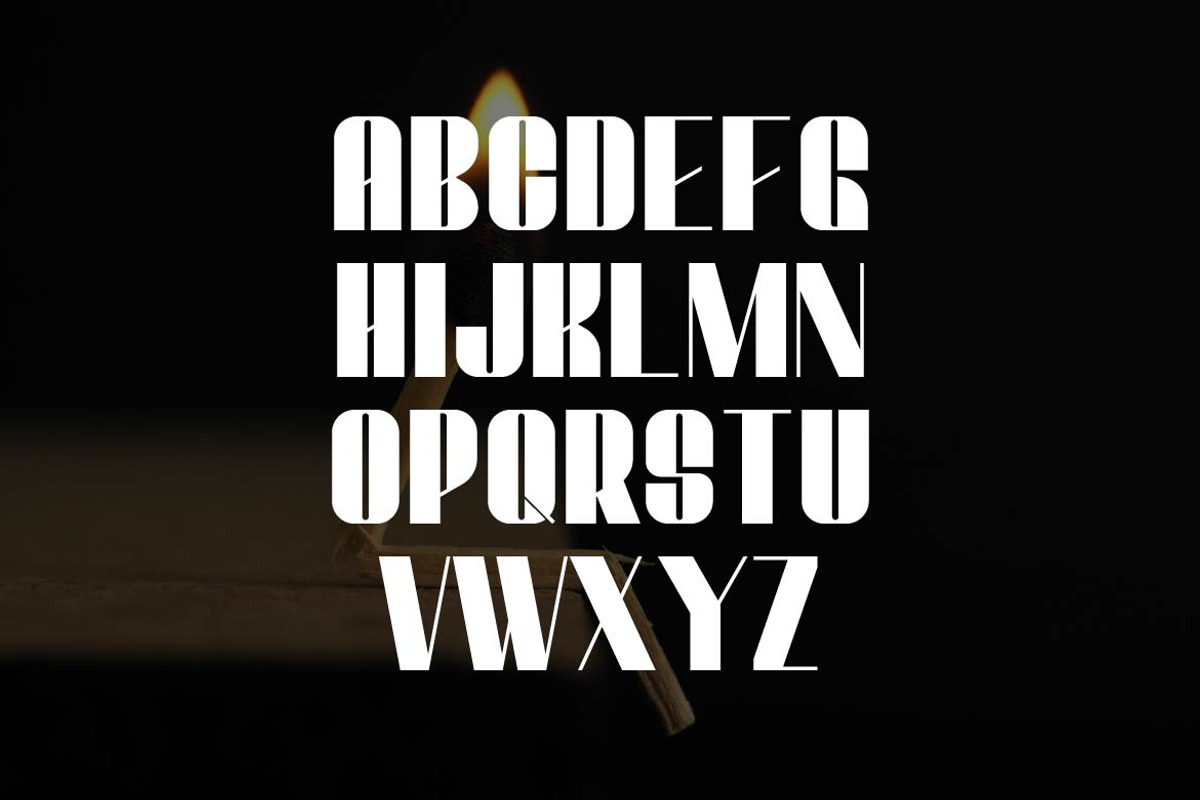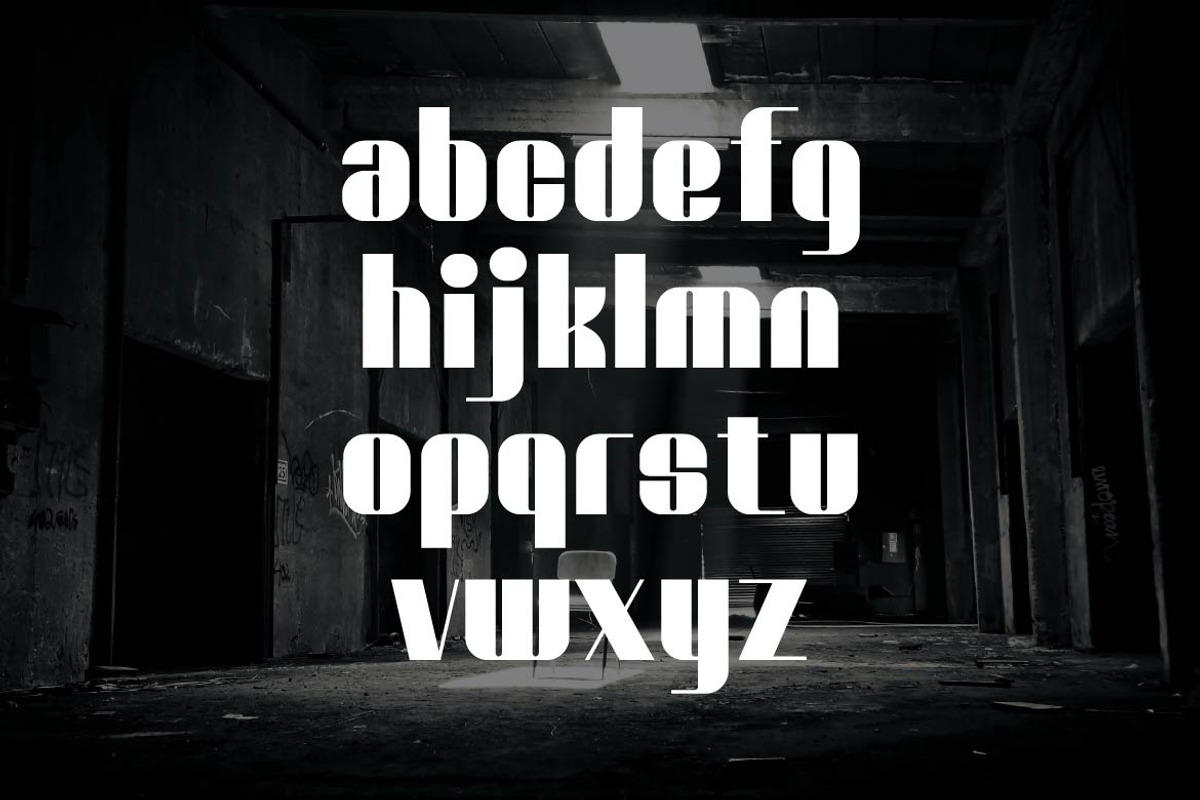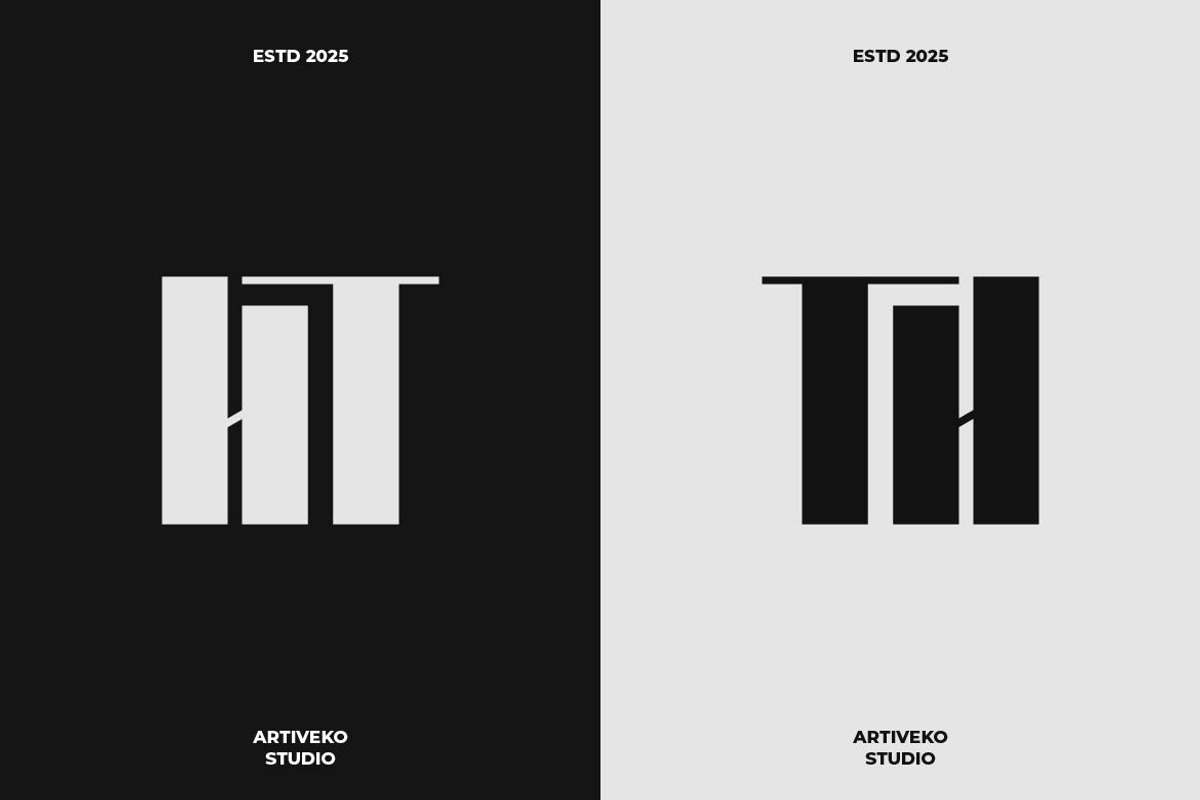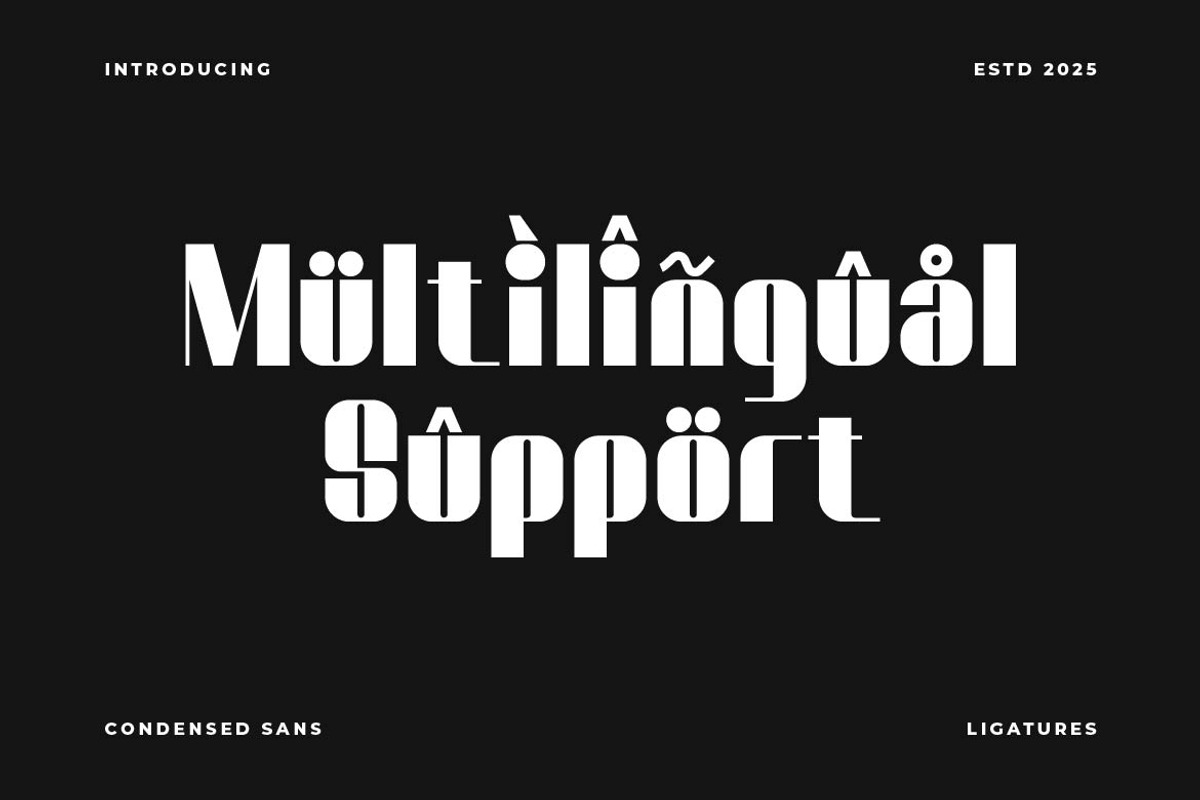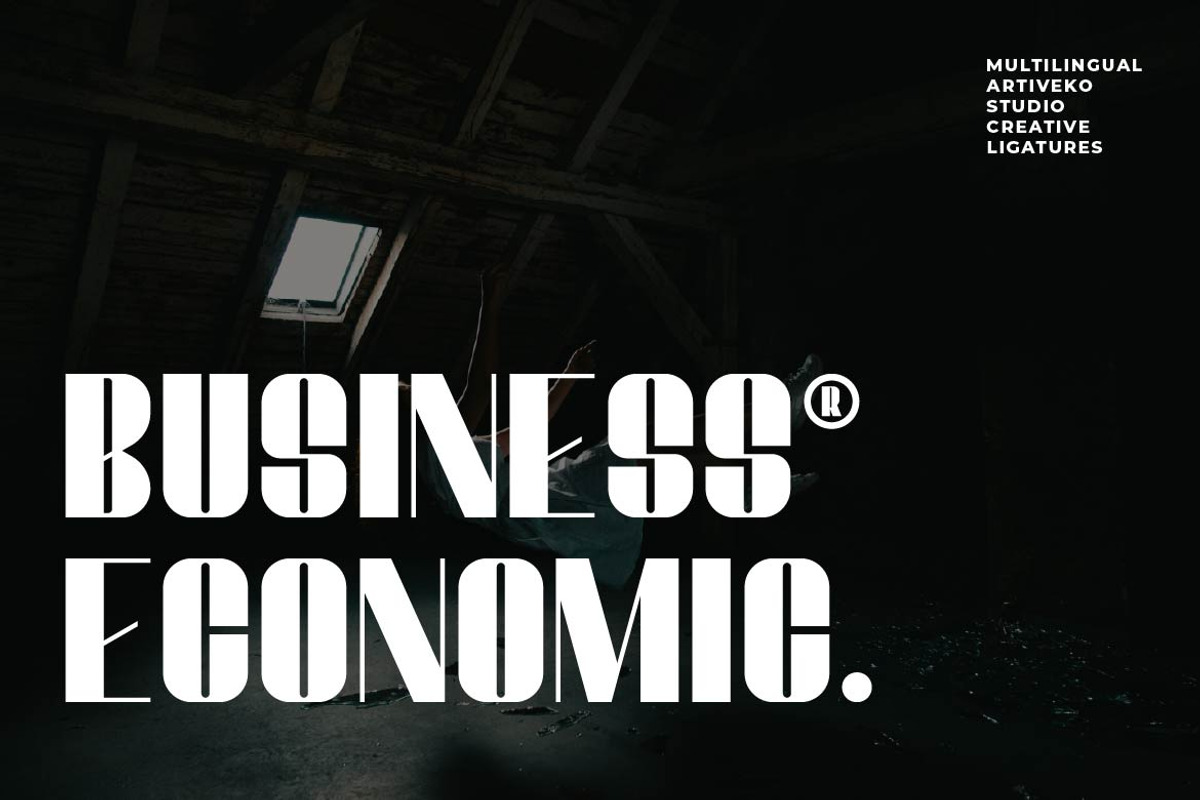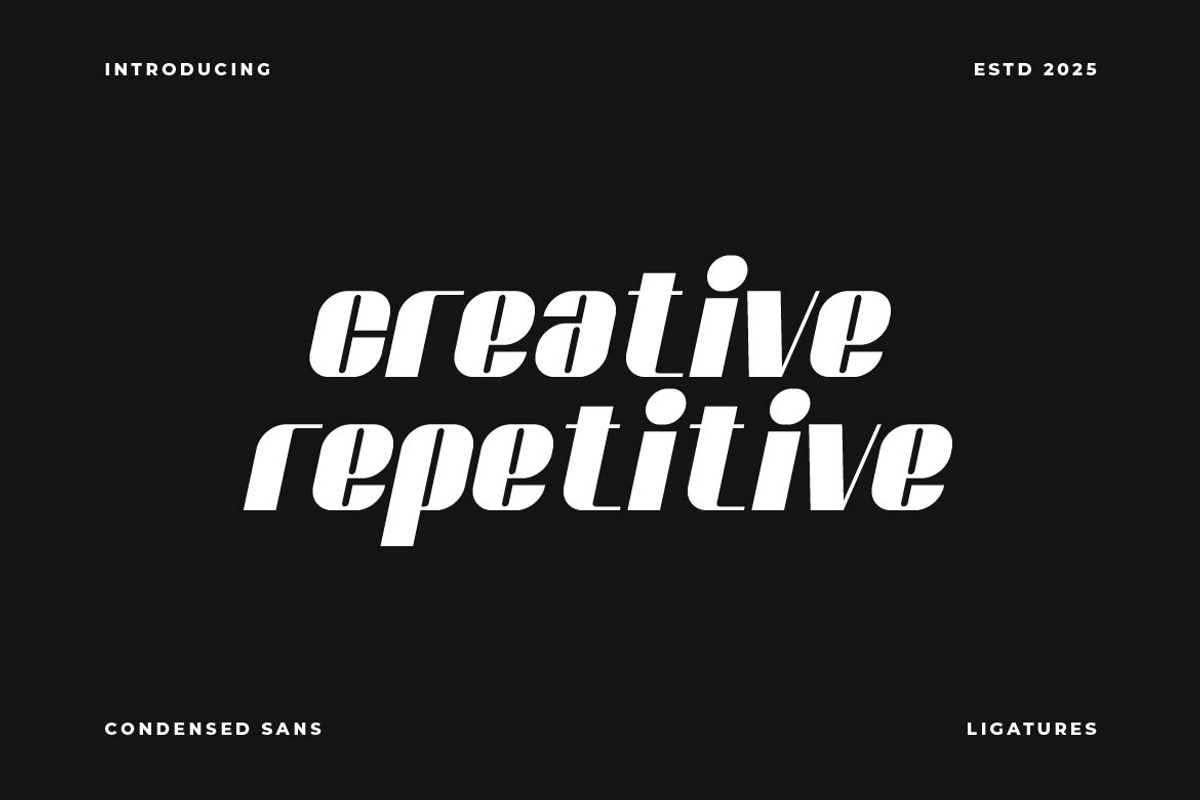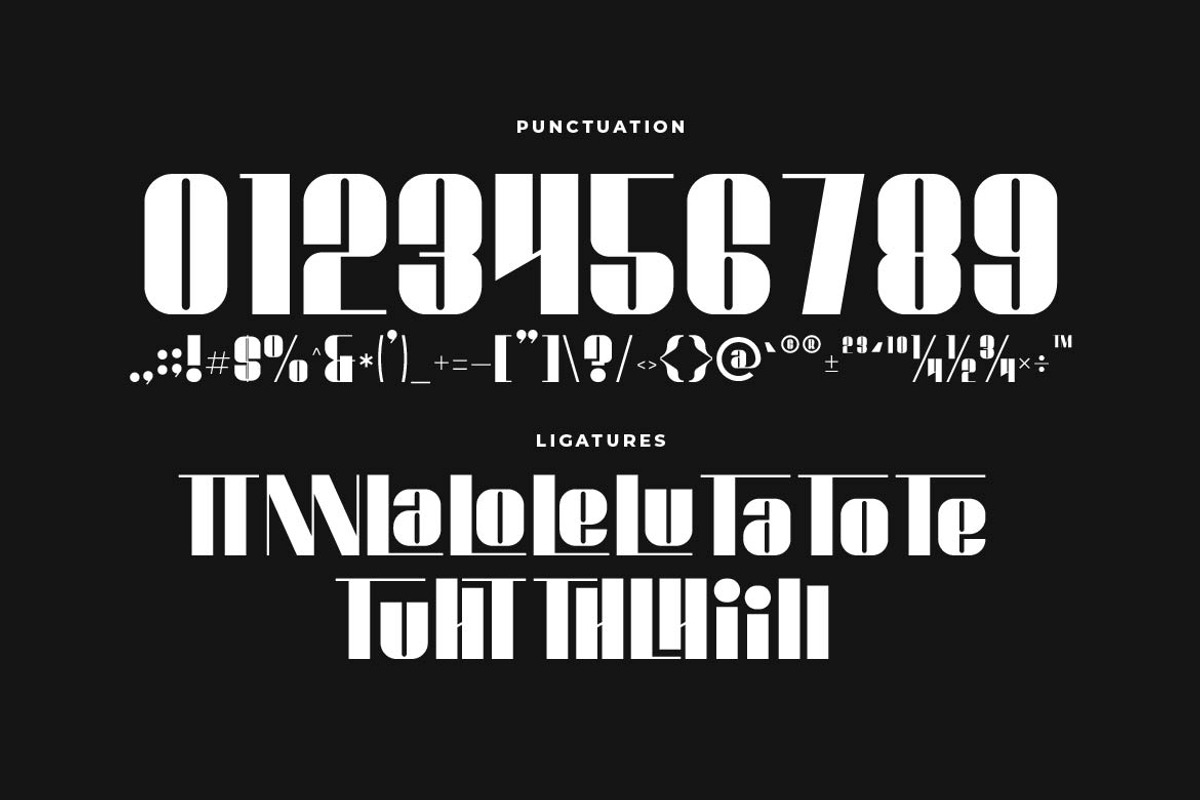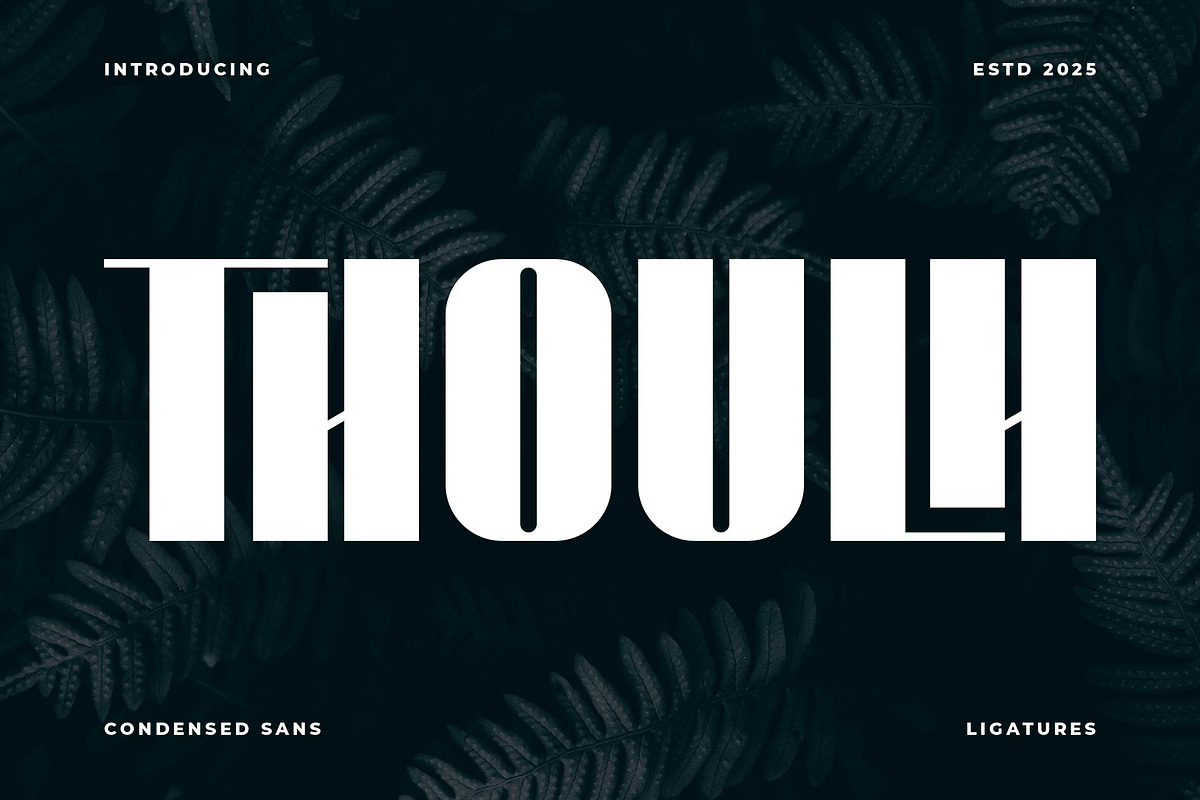
Thoulh Modern Display Font
Thoulh is a bold and condensed display sans serif typeface designed to grab attention and make a lasting impression. With its narrow proportions and sharp, modern structure, Thoulh is perfect for headlines, posters, branding, editorial layouts, and anything that demands a strong visual identity. Its clean geometry and tight spacing give your designs a confident and contemporary feel without sacrificing readability.